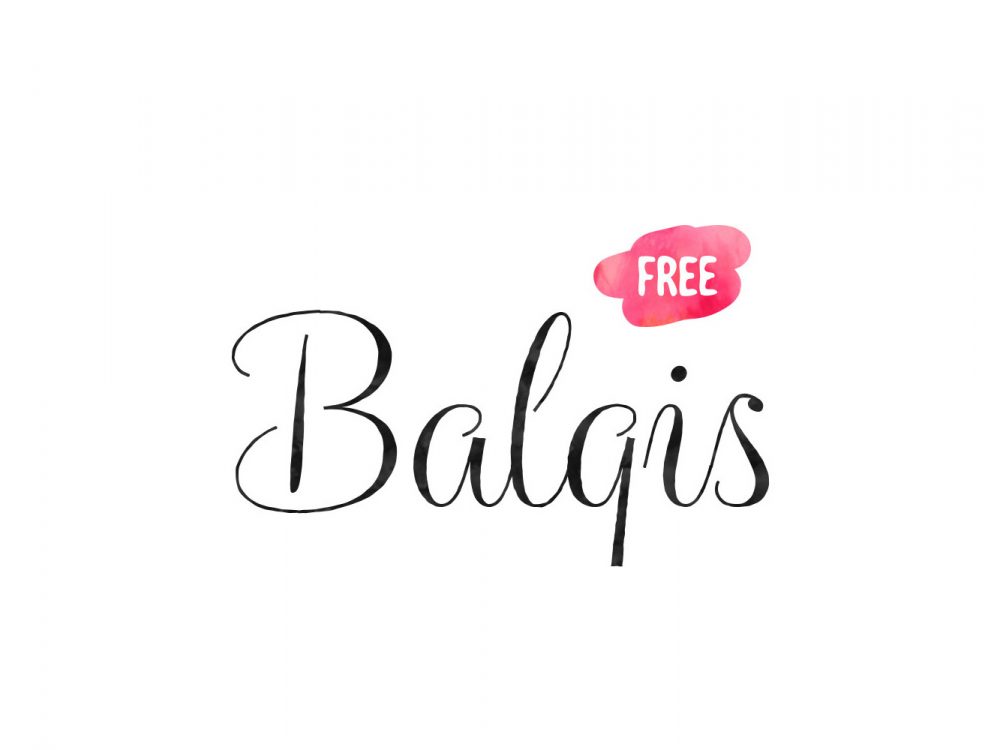
Balqis Free Font
Balqis Free Font is a modern, completely free handwritten font that has an interesting elegant style and is perfect for creating various design projects that require a handwritten script font. Use this font to create posters, wedding invitations, cards, branding, flyers, prints, and more. Raise your professional level with this elegant font.